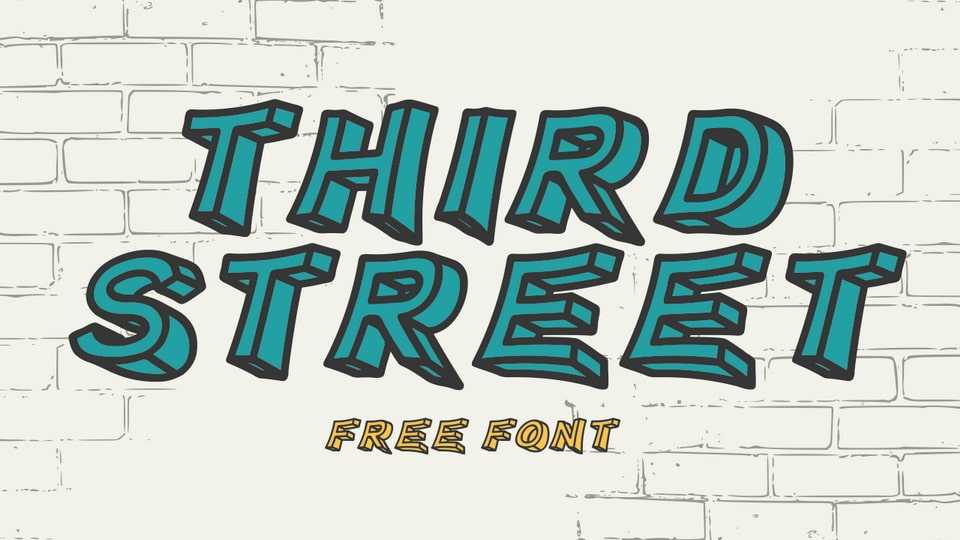
Download Third Street font, a 3D display typeface inspired by the hip-hop culture, graffiti and urban street art. Third Street font is perfect to use for logos, posters, packaging, merchandise, social media and any project that needs a strong impression.